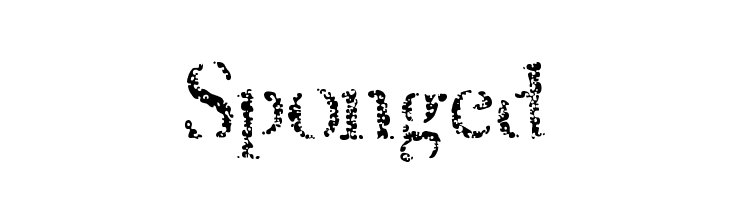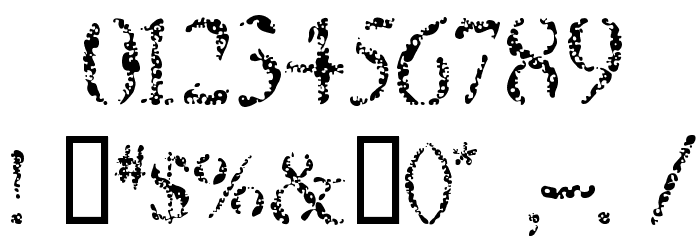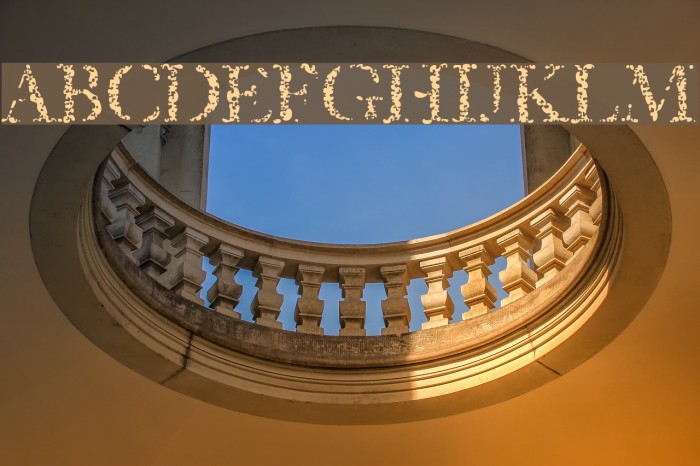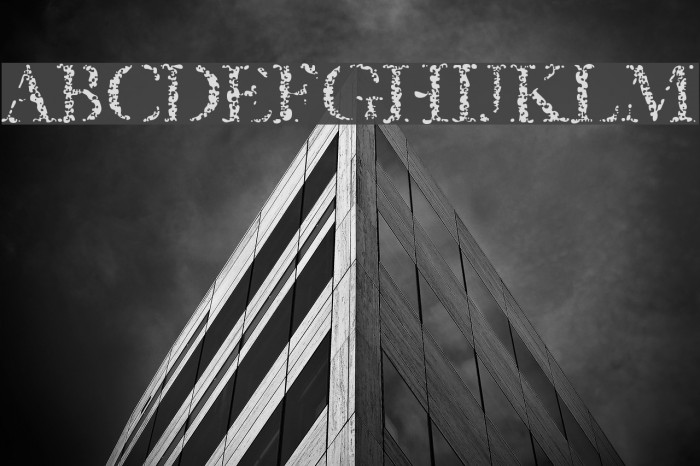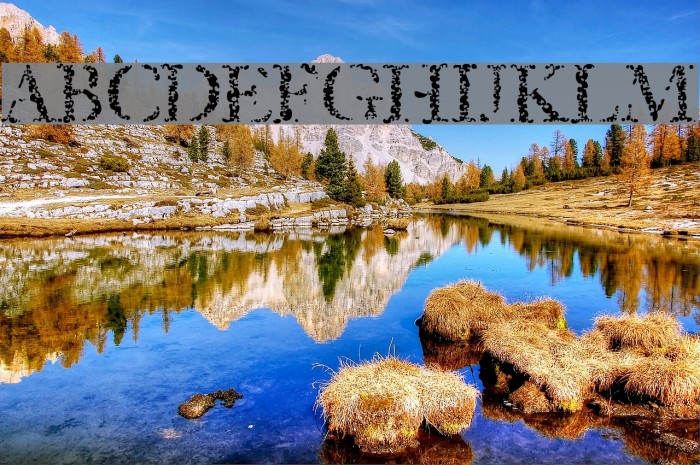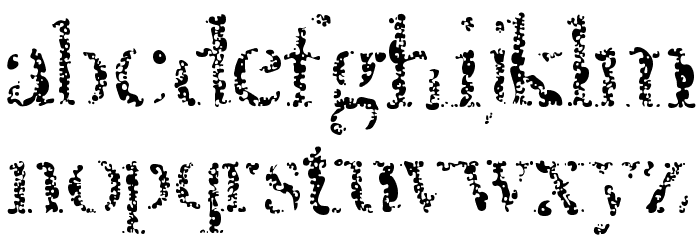
Sponged Font
Sponged Description
This font features a unique, textured appearance reminiscent of a sponge or paint splatter effect. Each character is crafted with irregular edges and a distressed look, giving it a playful and artistic vibe. The uppercase and lowercase letters maintain a consistent style, with the texture adding depth and character. Numbers and special characters follow the same design, ensuring a cohesive look across all elements. The font's distinct style makes it ideal for creative projects that require a bold and unconventional typeface.
| Proposed Projects | Ideal for artistic projects, posters, album covers, and creative branding. |